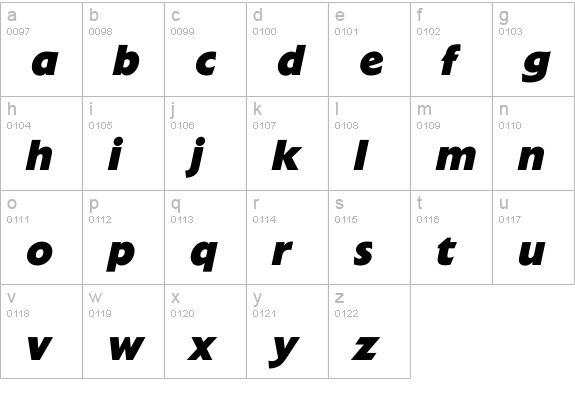
ExtensionExtraBoldItalic Font Details
ExtensionExtraBoldItalic font is a stunning display typeface that commands attention with its bold and italic design. Perfect for making a statement, this font exudes confidence and modernity. The sharp angles and thick strokes add a sense of strength and power to any text it is applied to. Best of all, ExtensionExtraBoldItalic font is available for free download at FontsMarket.com. Whether you're working on a project that requires a bold and impactful typeface or simply looking to enhance your design arsenal, this font is a valuable addition that won't cost you a penny. Don't miss out on the opportunity to elevate your designs with this striking font that is both stylish and versatile. Download ExtensionExtraBoldItalic font today and unleash your creativity!